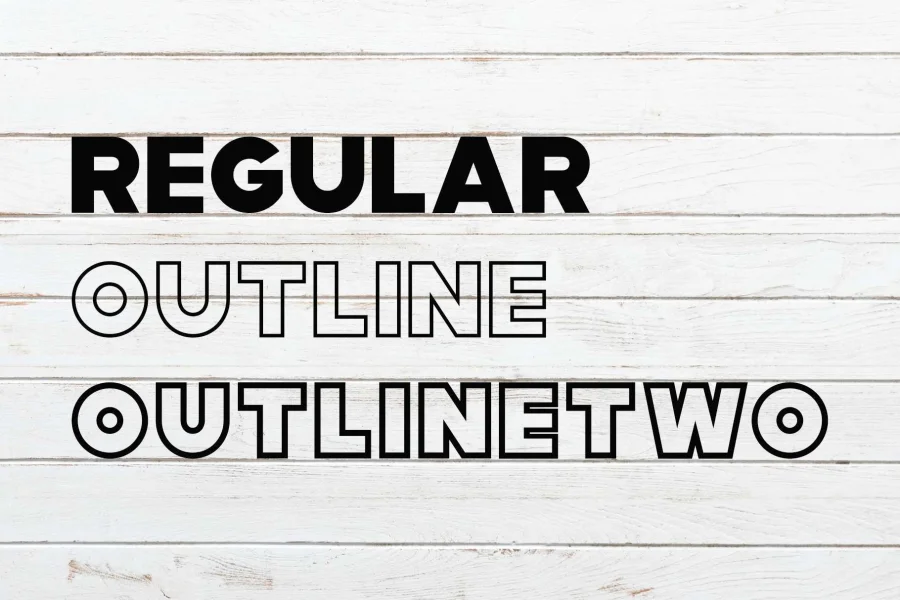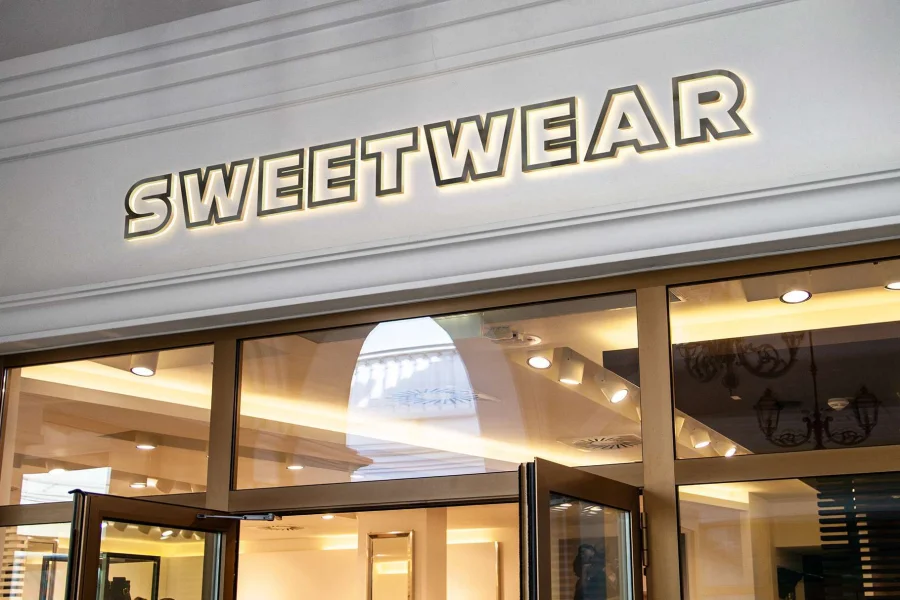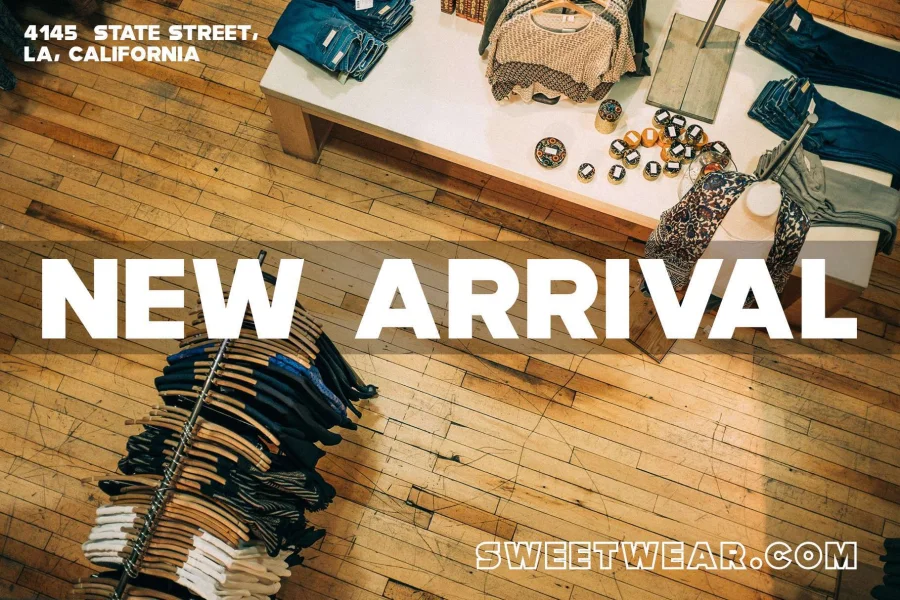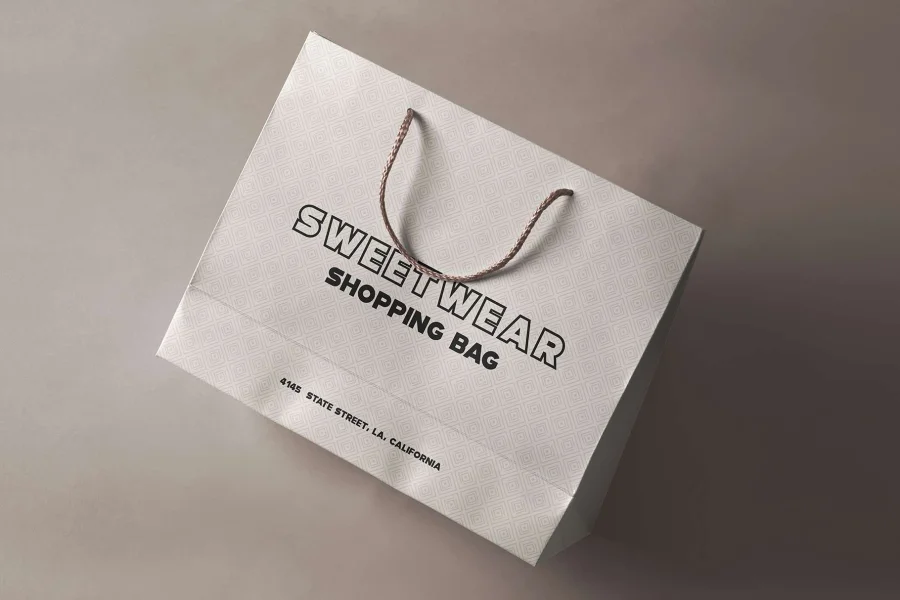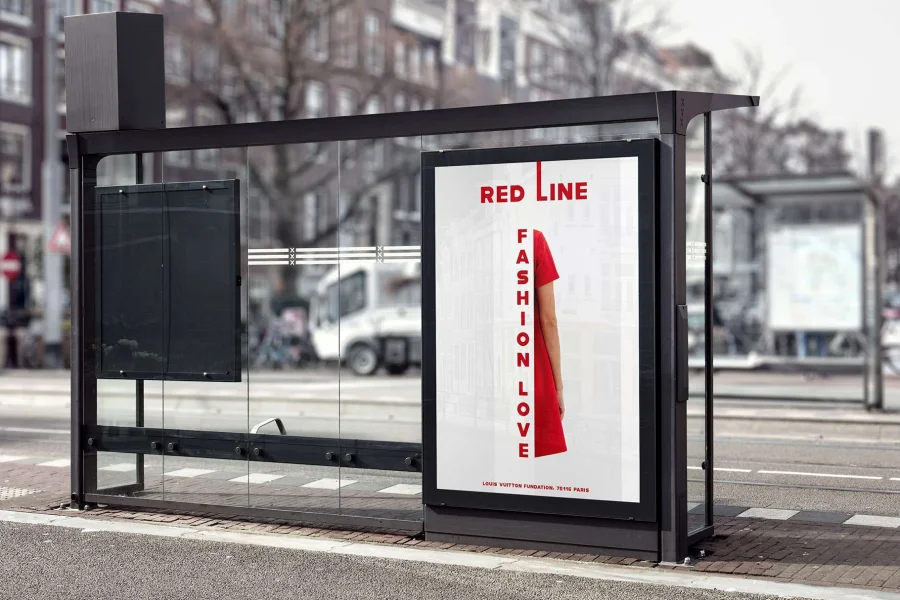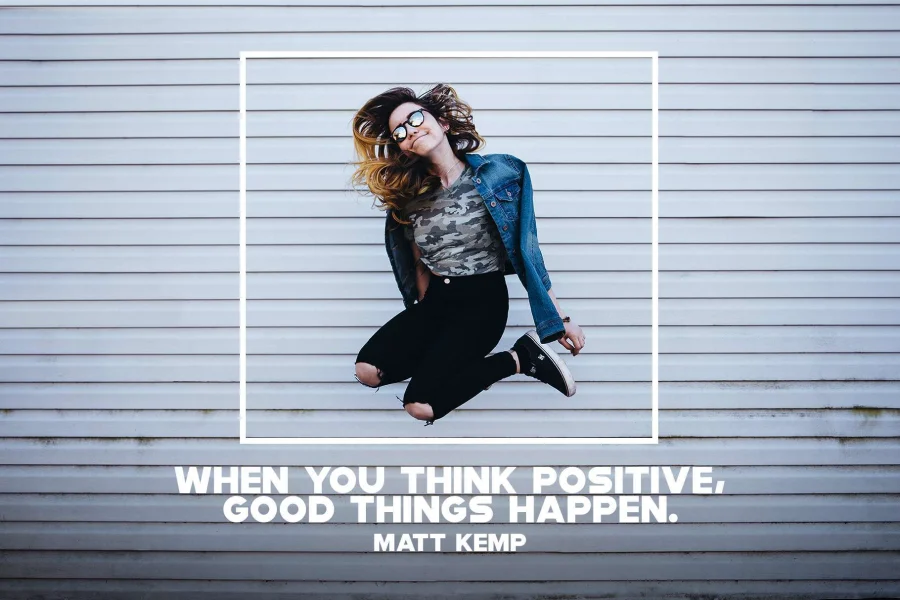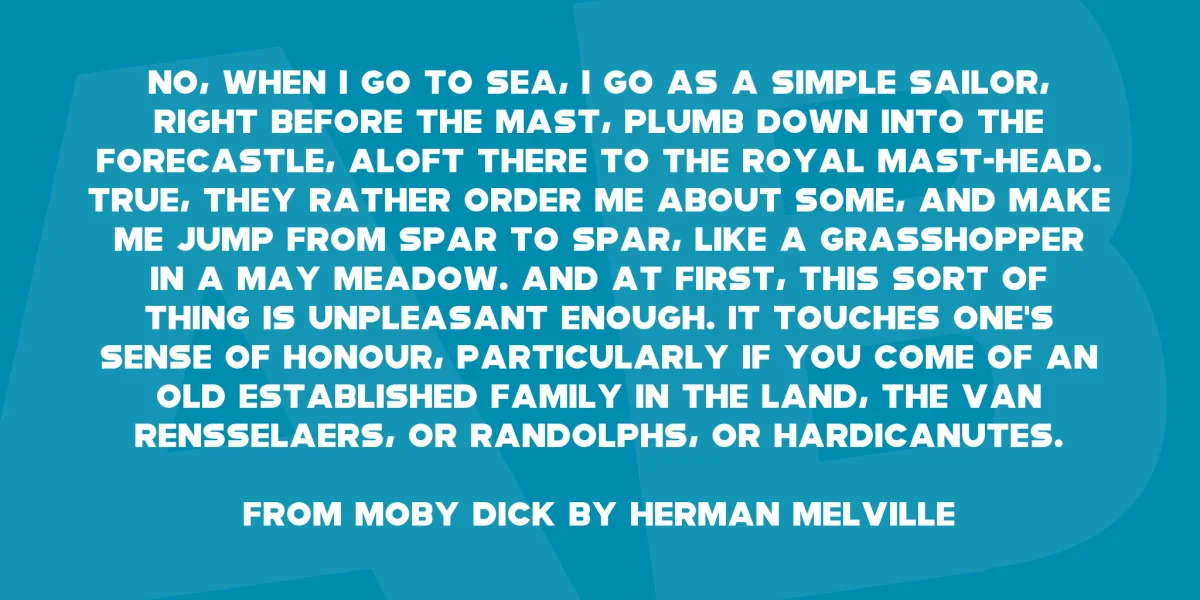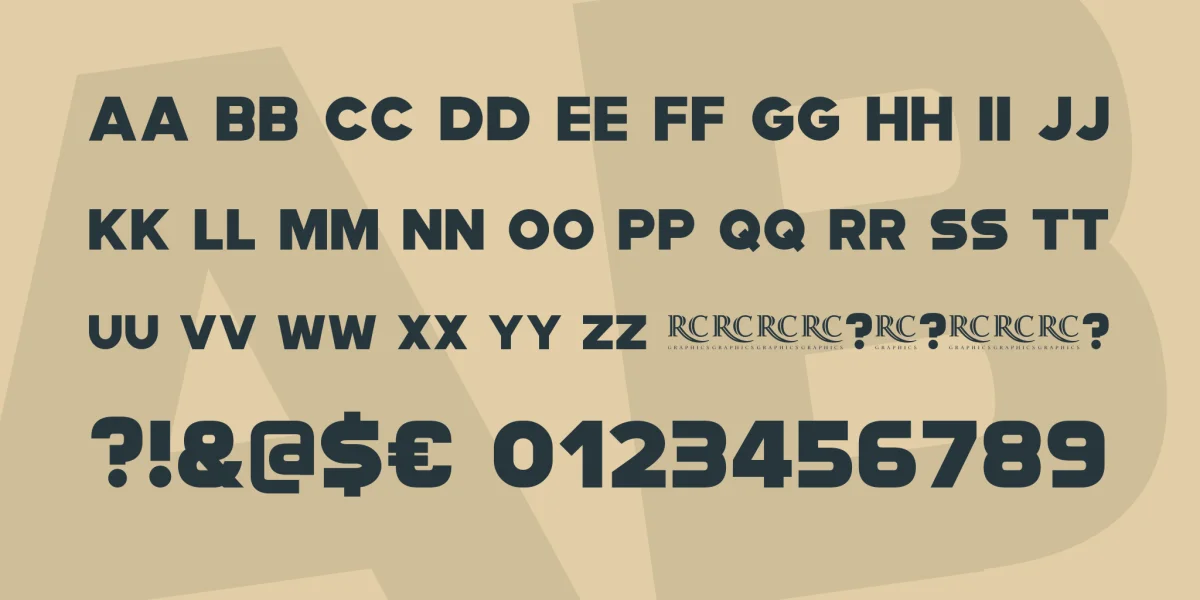
Introducing Modia - Sans Serif Font
Modia is a strong and clean sans serif font. It's a versatile font family designed for strong, classic branding. Modia works great in any branding, logos, magazines, videos, product packaging, website headers, clothing designs and much more.